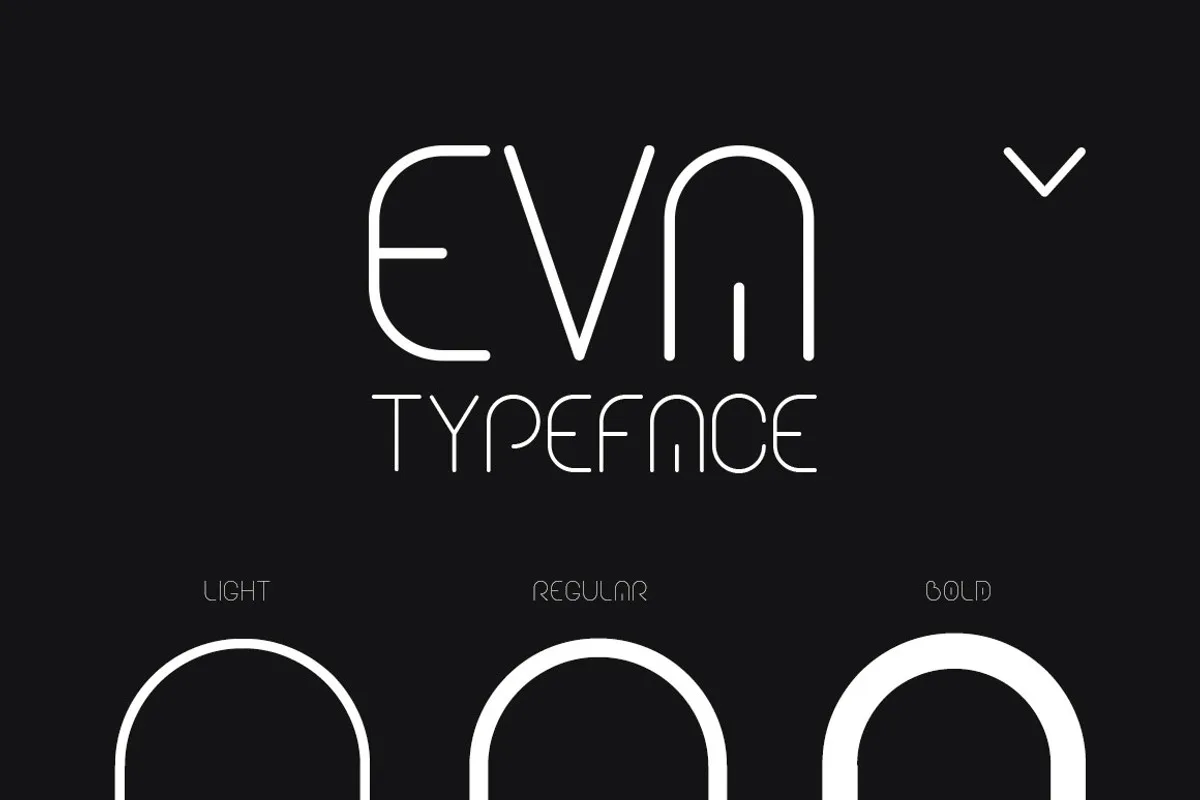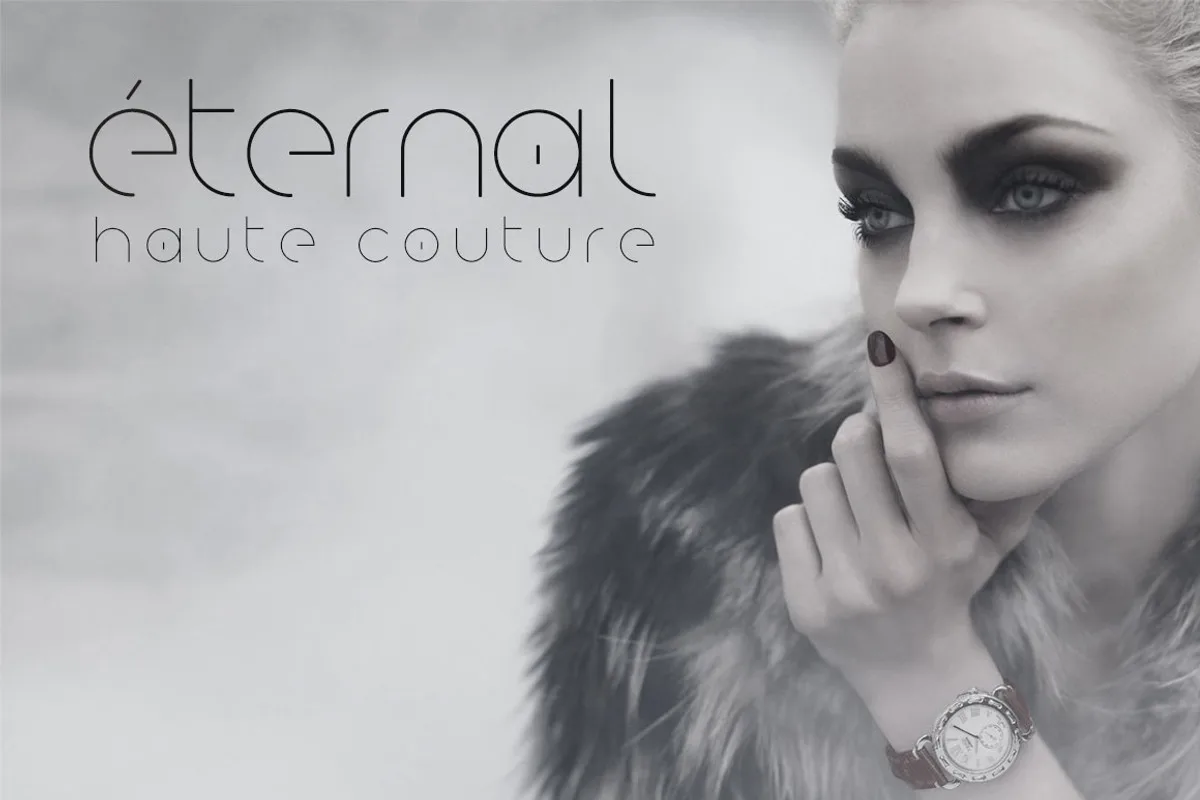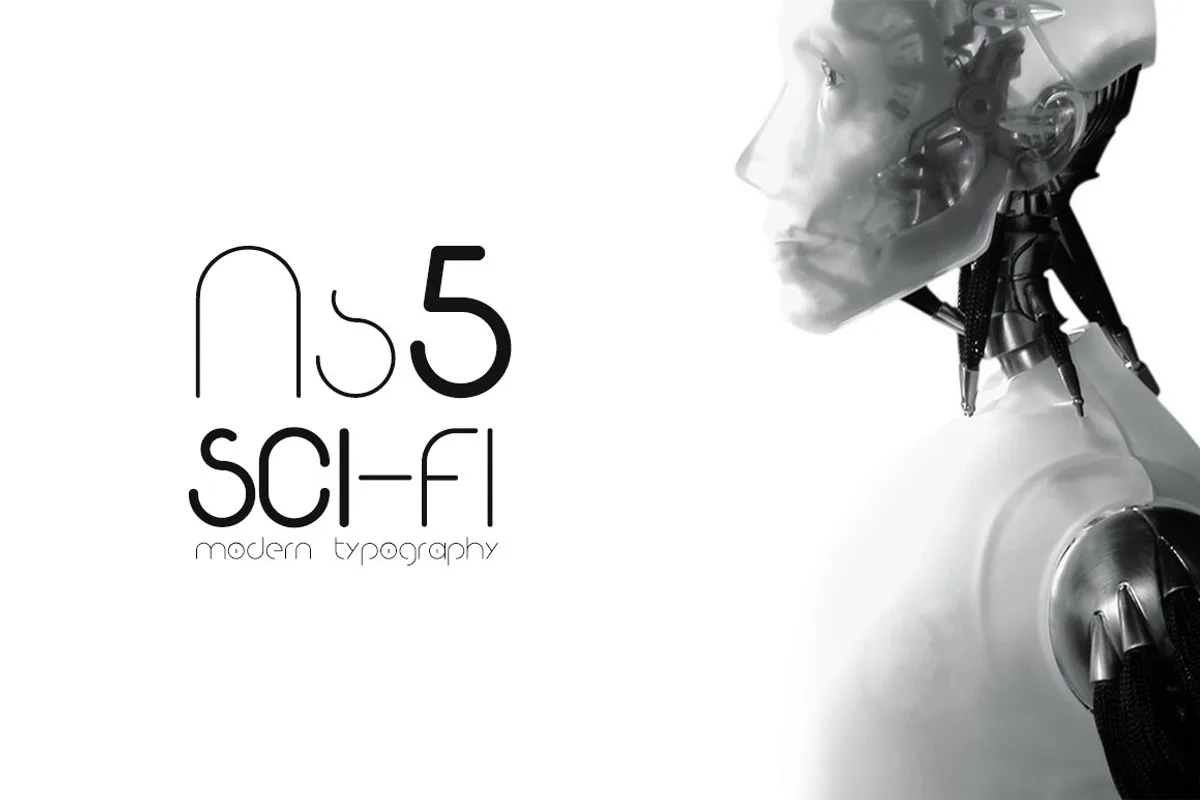
Eva is a modern, stylish and futuristic font (all in one). This font is best for titling. Contain 3 thicknesses: light, regular and bold and have multilingual support.